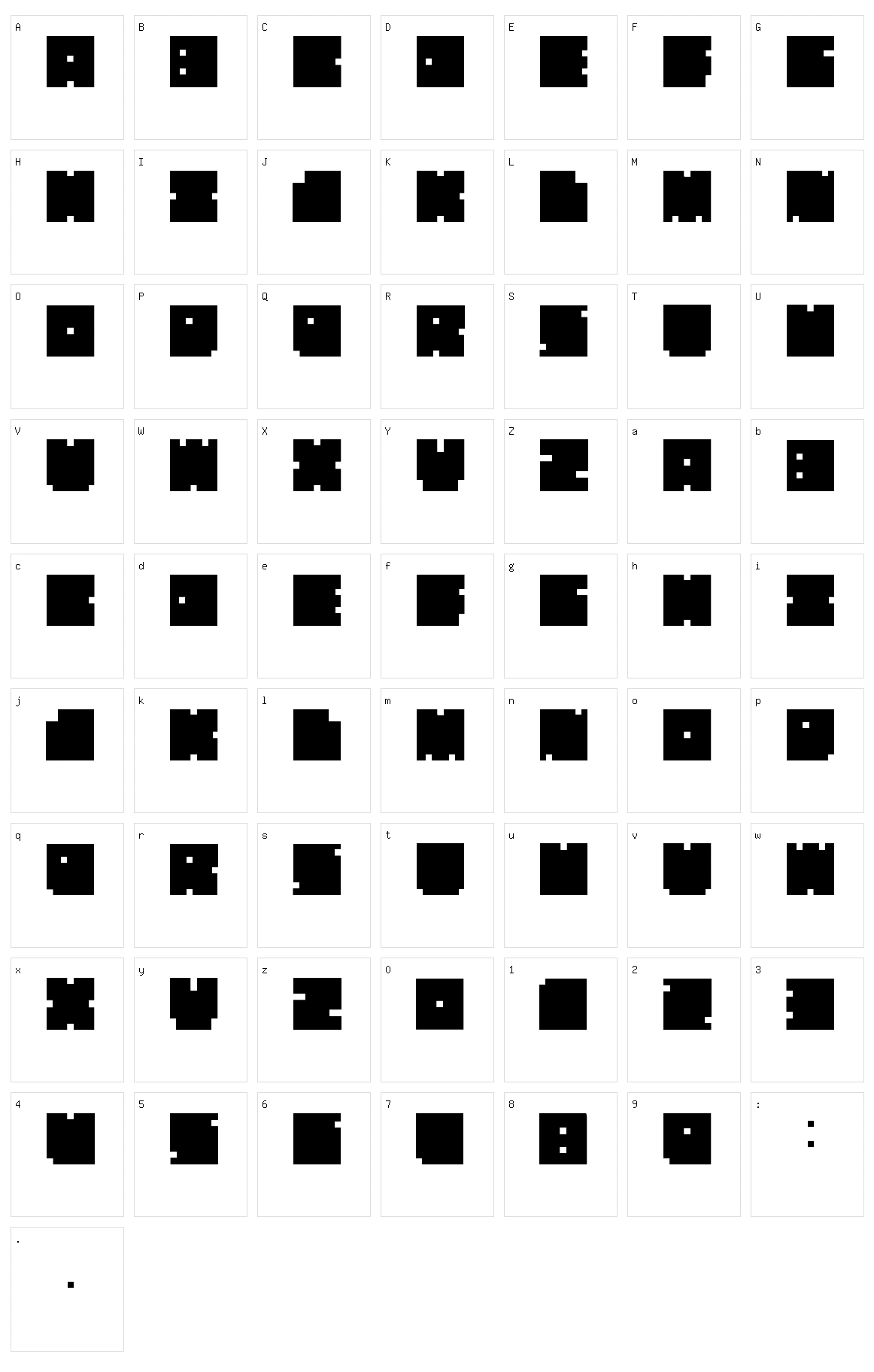
Elvi Esna
The free font Elvi Esna is carefully designed by Téo Brito, showcasing a thoughtful balance of creativity and usability and falls under the Square font style. When you download the ZIP file, it contains only 88.92 KB of font files, making it lightweight and quick to download. Please review the license details below to understand permitted usage and distribution rights. If license information is not available, we recommend using this font for personal projects only or contacting the author directly for commercial usage permissions.